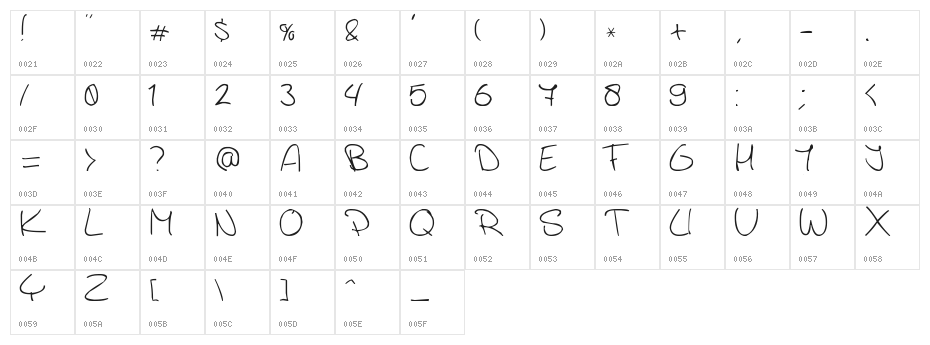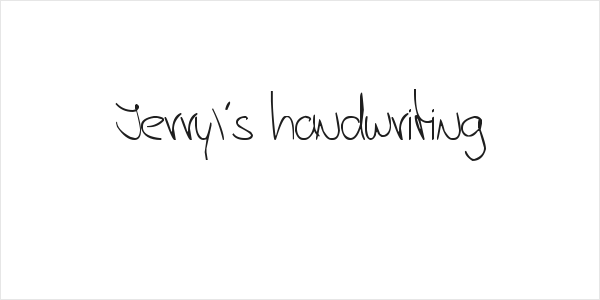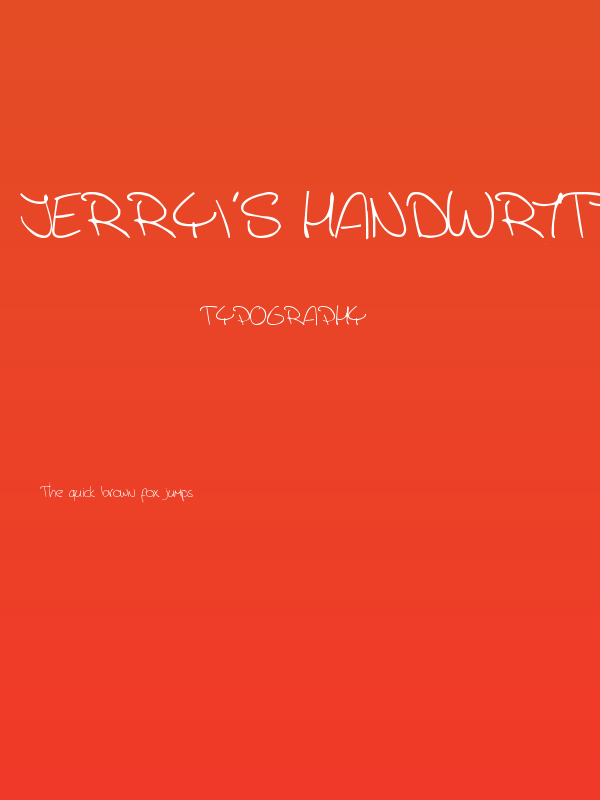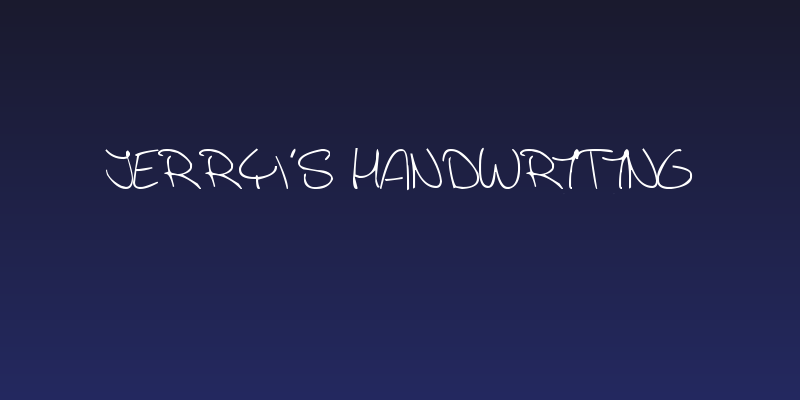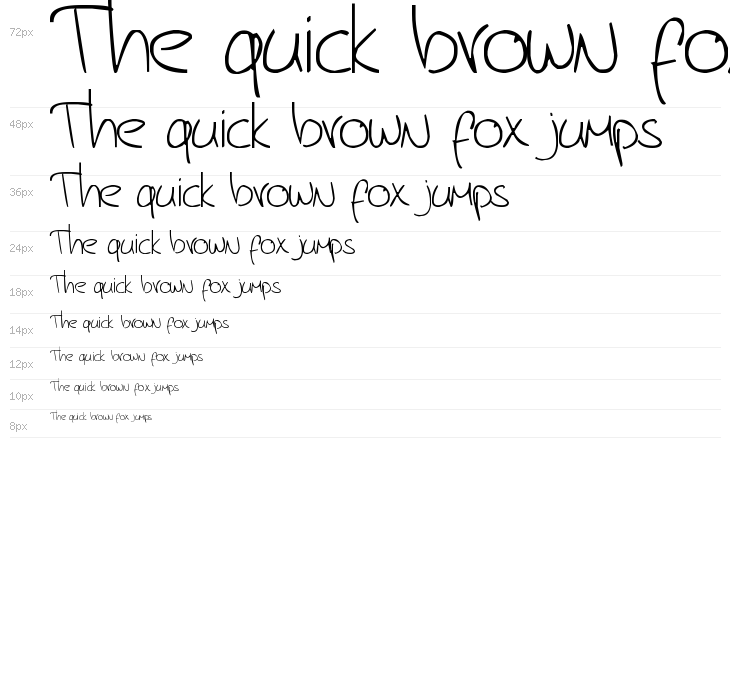
Jerry's handwriting Font
Jerry's handwriting Description
This font exudes a casual, handwritten style that mimics the natural flow of penmanship. The characters are slightly irregular, adding a personal and informal touch. Each letter is distinct, with a playful and approachable appearance. The uppercase and lowercase letters maintain a consistent style, while the numbers and special characters blend seamlessly into the overall design. The strokes are smooth and fluid, giving the font a relaxed and friendly vibe. This font is perfect for projects that require a personal touch, such as greeting cards, invitations, or informal branding.
| Use Case | Headlines, Informal text, Personal projects |
| Proposed Projects | Ideal for greeting cards, invitations, personal branding, and informal communications. |